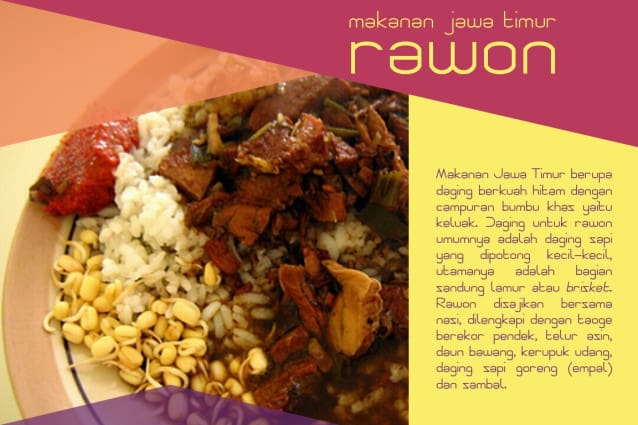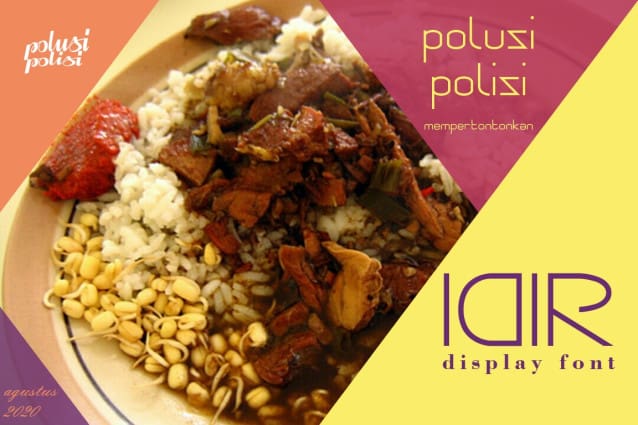
Icir Display Font
Icir Display Font, is a display font that denotes simple lines, has a cryptic and modern impression. Icir is perfect for use on logo design, media, mobile apps, social media, website design, youtube videos, etc.